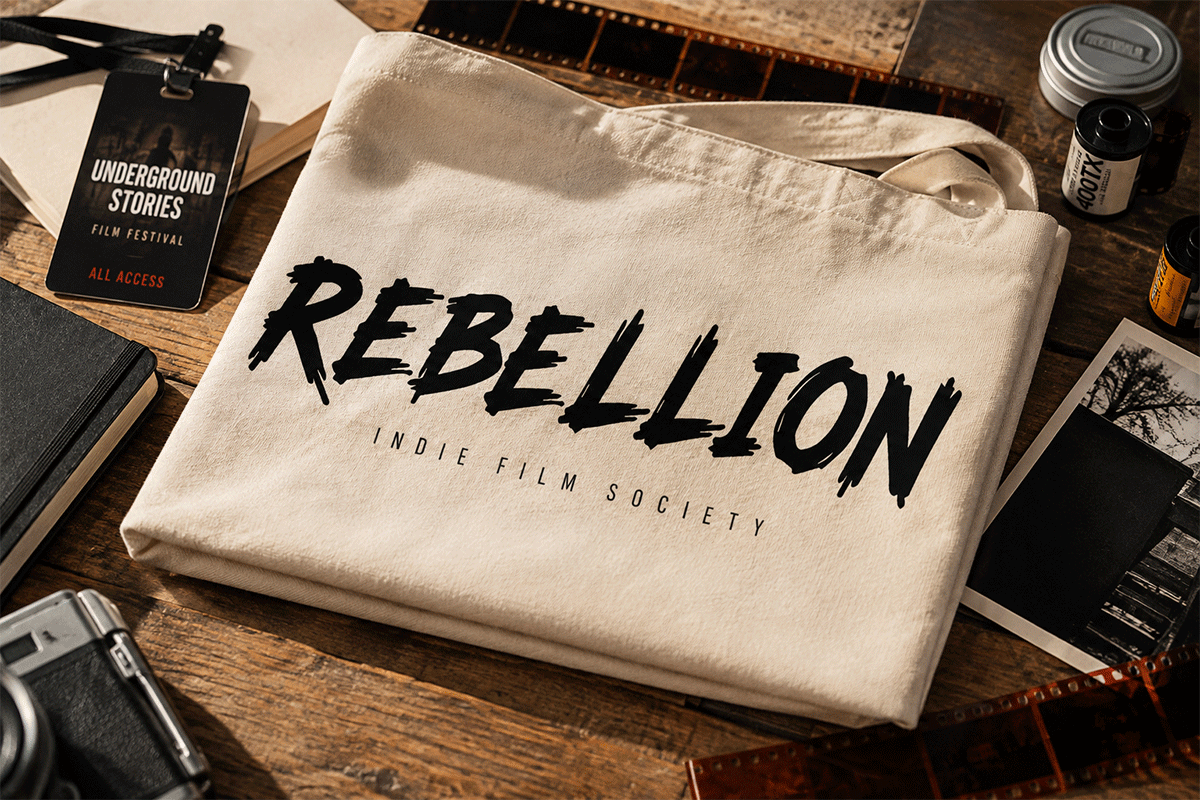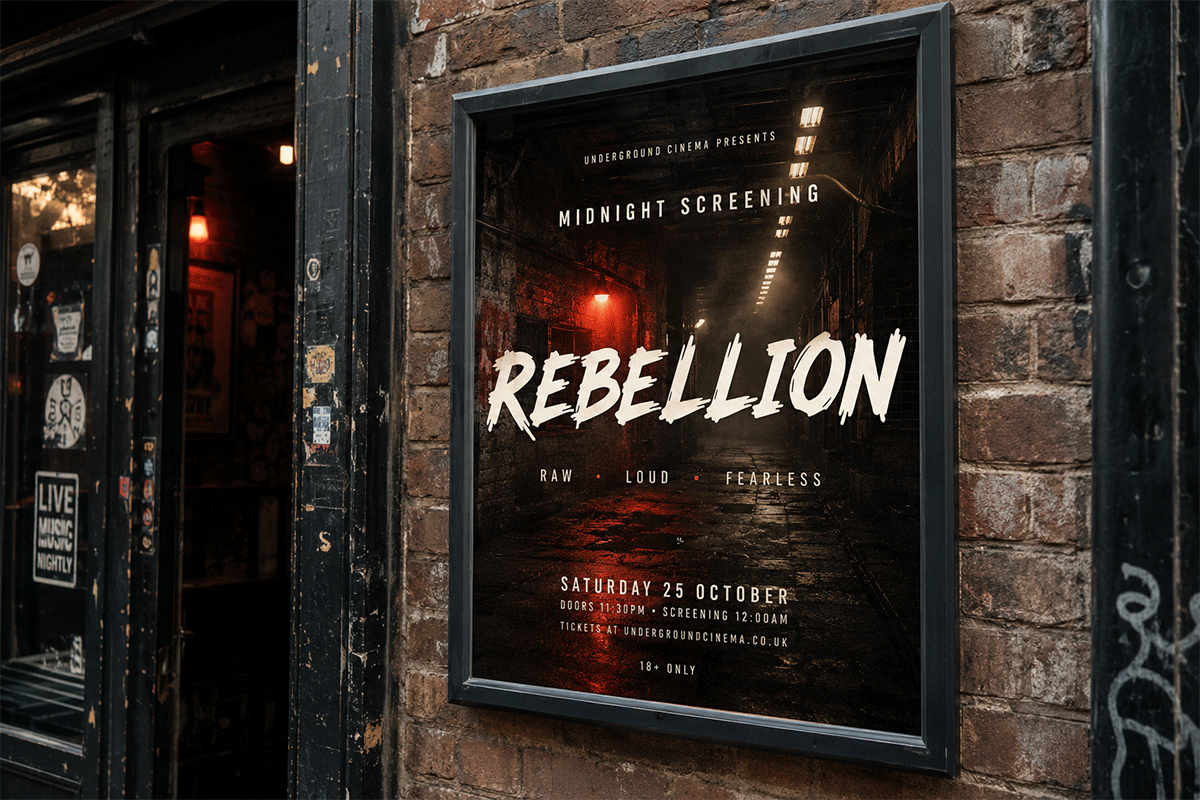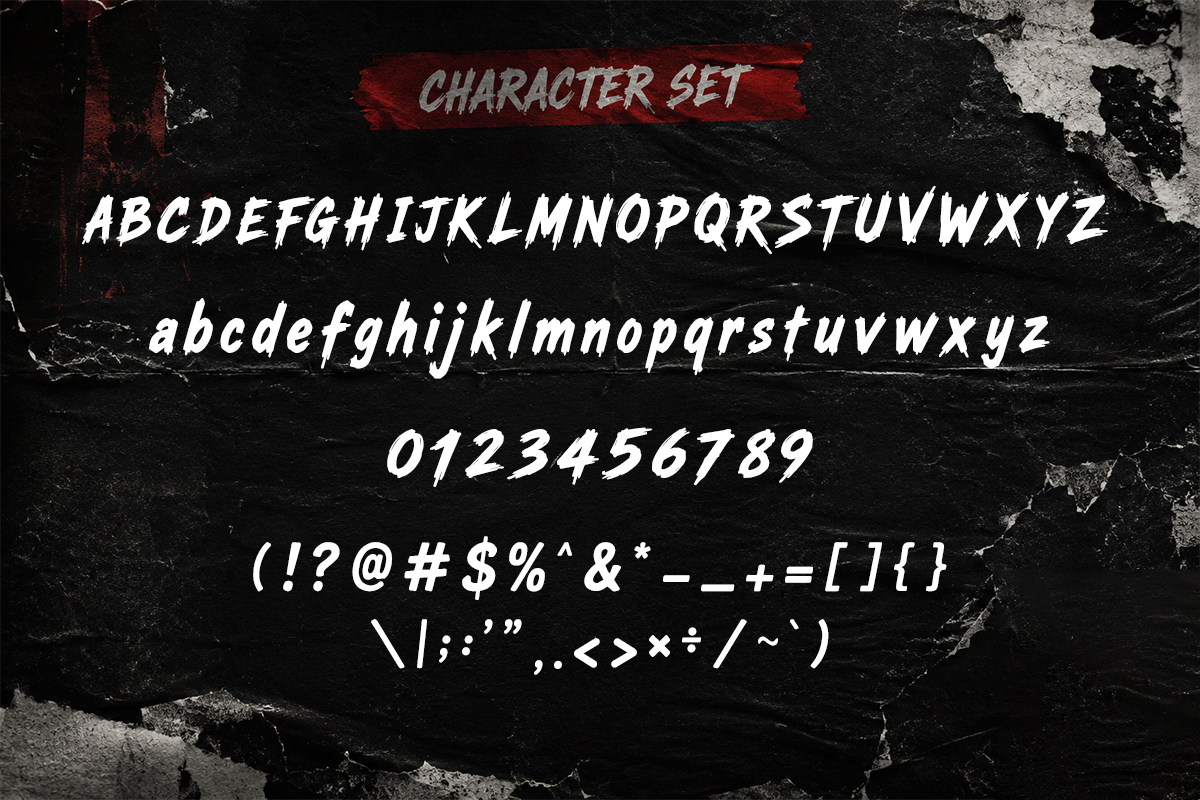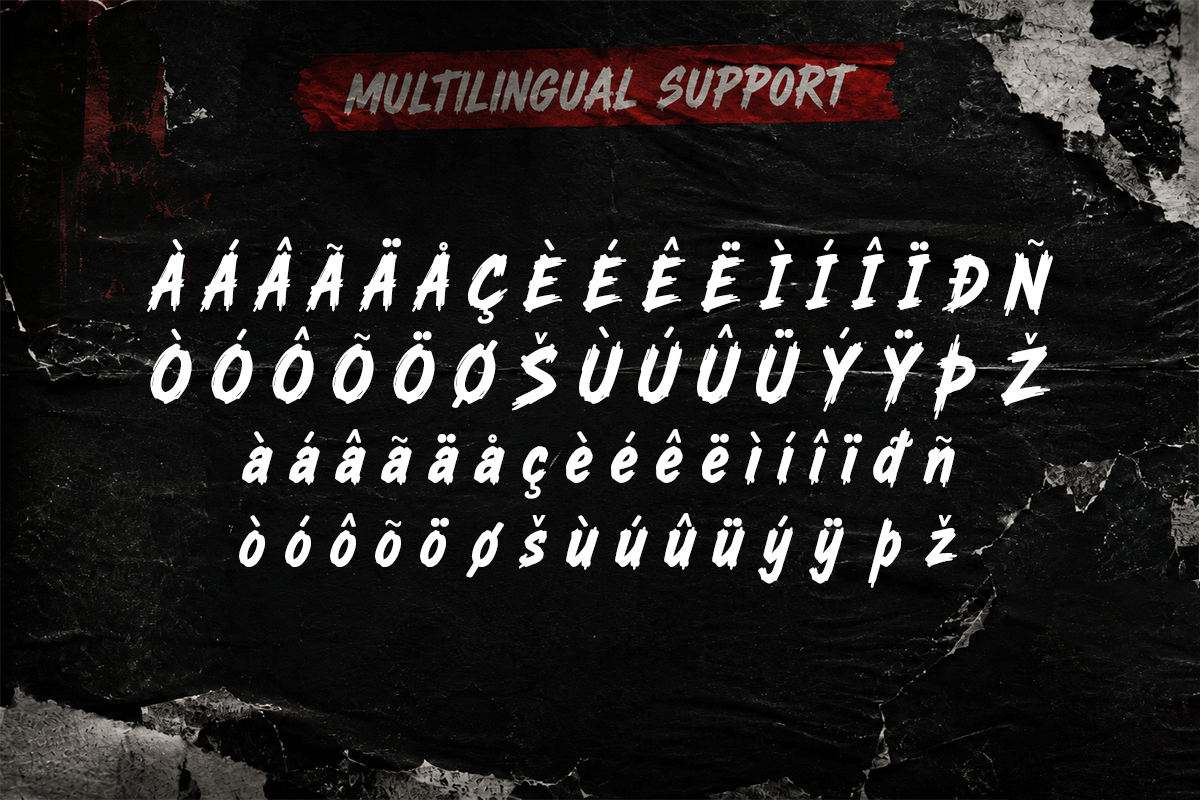
Rebellion A Modern Brush Display Font
Rebellion A Modern Brush Display Font is a bold brush display typeface created with raw textures, sharp movement, and expressive hand-painted strokes. Its energetic letterforms deliver a strong, uncompromising personality that instantly adds intensity and attitude to any design.
Inspired by street posters, underground culture, protest graphics, punk aesthetics, and handmade brush lettering, Rebellion A Modern Brush Display Font is perfect for posters, album covers, music artwork, streetwear, T-shirts, event graphics, editorial headlines, movie titles, social media campaigns, merchandise, and bold branding projects.
The rough edges and dynamic brush construction give every word a handcrafted, spontaneous character. Rebellion A Modern Brush Display Font works especially well at large sizes where its aggressive texture and dramatic shapes can become the main focus of the composition.
Rebellion A Modern Brush Display Font is an excellent choice for designers looking for a typeface that feels raw, bold, fearless, expressive, energetic, and rebellious.